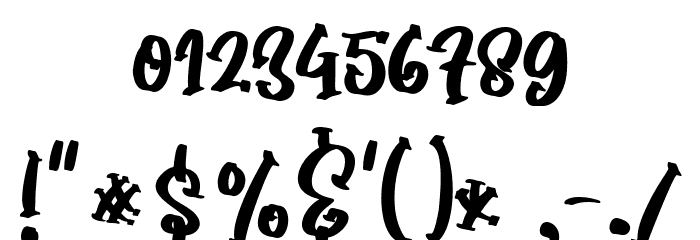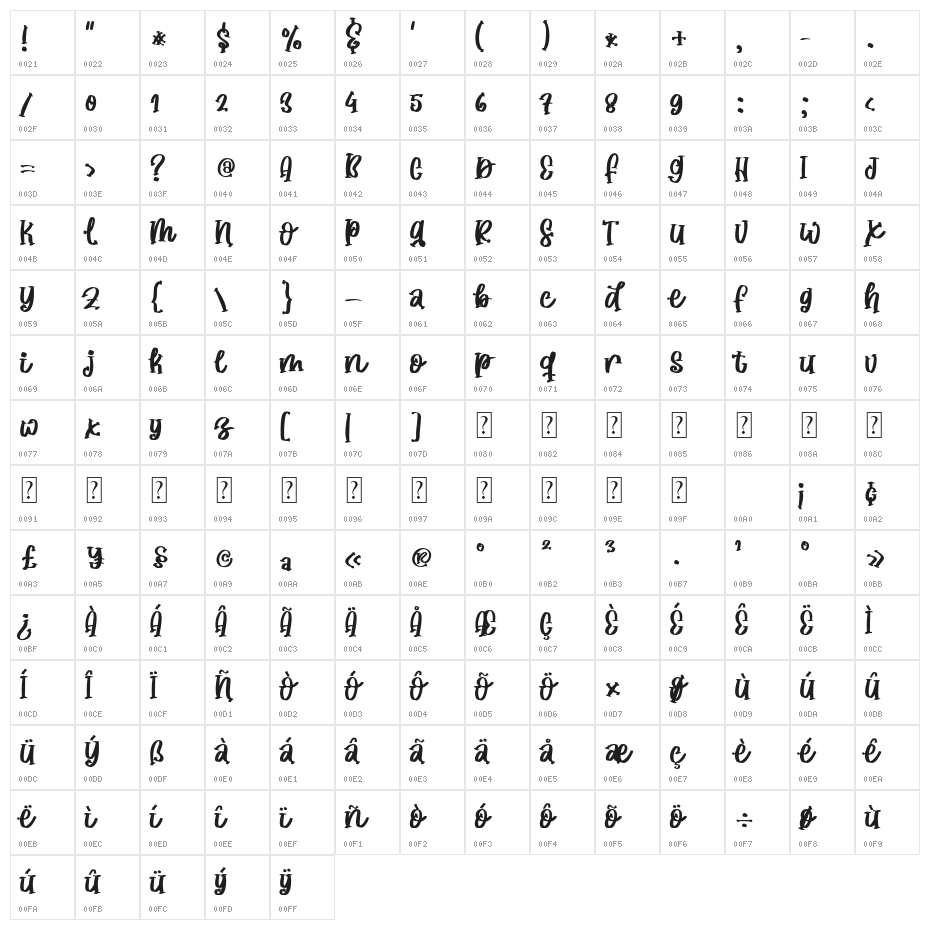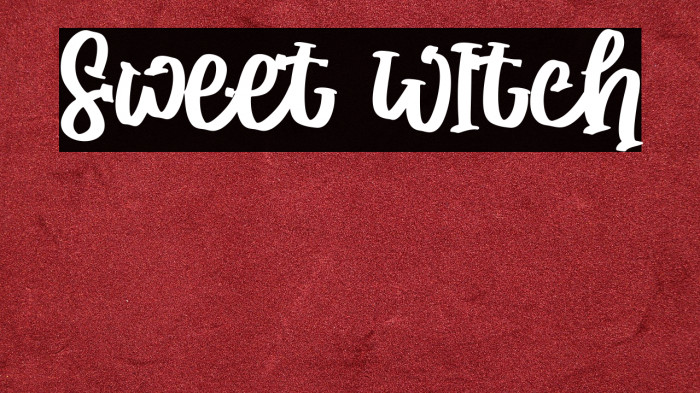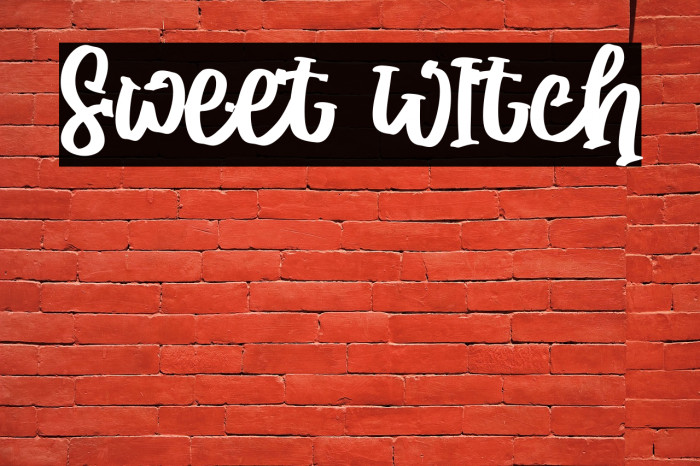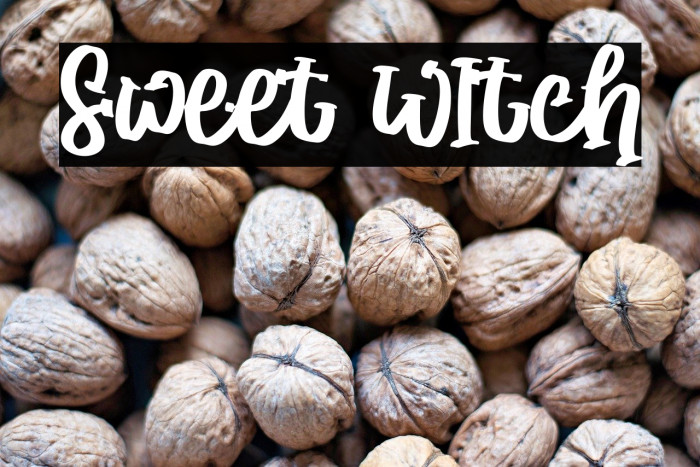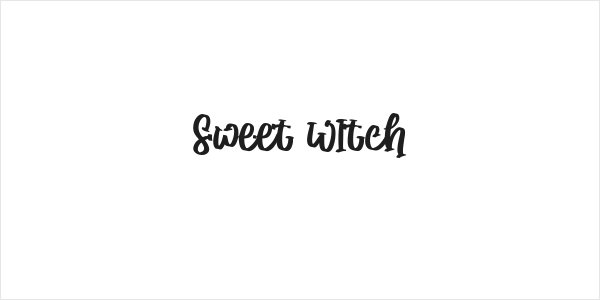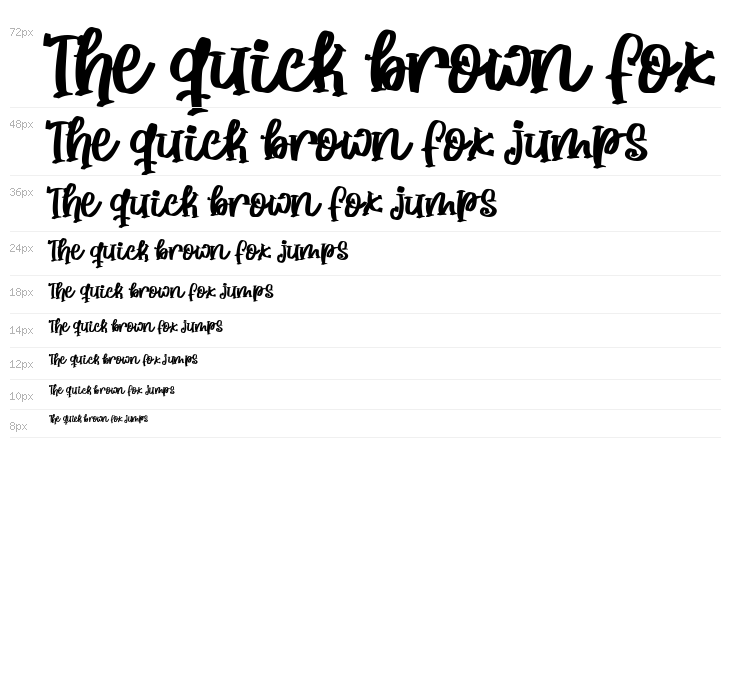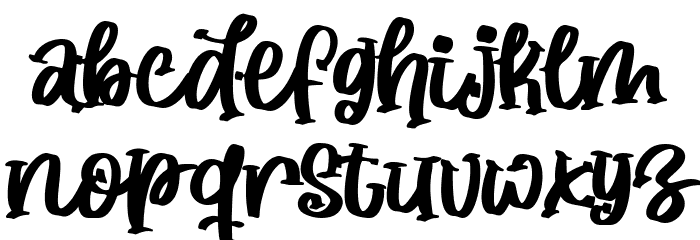
Sweet WItch Font
Sweet WItch Description
This font features a playful and whimsical style, characterized by its bold and flowing script. The letters are crafted with a sense of movement, giving them a lively and dynamic appearance. The uppercase and lowercase letters maintain a consistent style, with exaggerated curves and loops that add to the font's charm. The numbers and special characters are equally expressive, ensuring a cohesive look across all elements. The font's boldness makes it stand out, while its decorative nature adds a touch of creativity and fun.